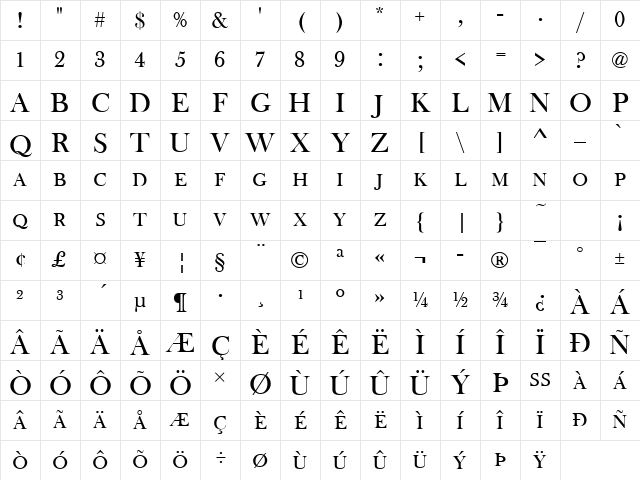
Baskerville Old Becker Discaps Regular
Complete Baskerville Old Becker Discaps Regular glyph index. Displaying only characters natively supported by Baskerville Old Becker Discaps Regular font.
Design Context for Baskerville Old Becker Discaps
Baskerville Old Becker Discaps is a composed and adaptable typeface that performs quietly and consistently across a wide range of design contexts.